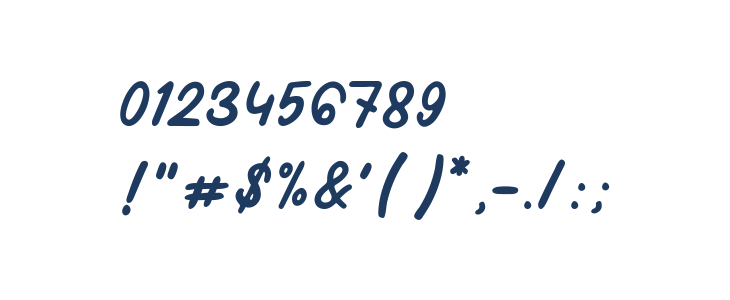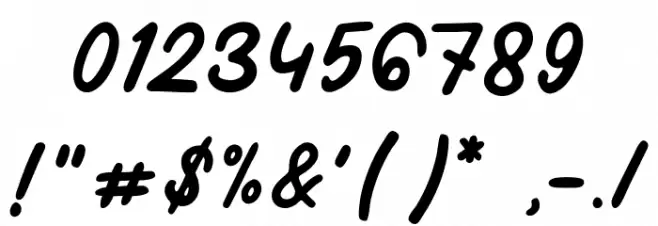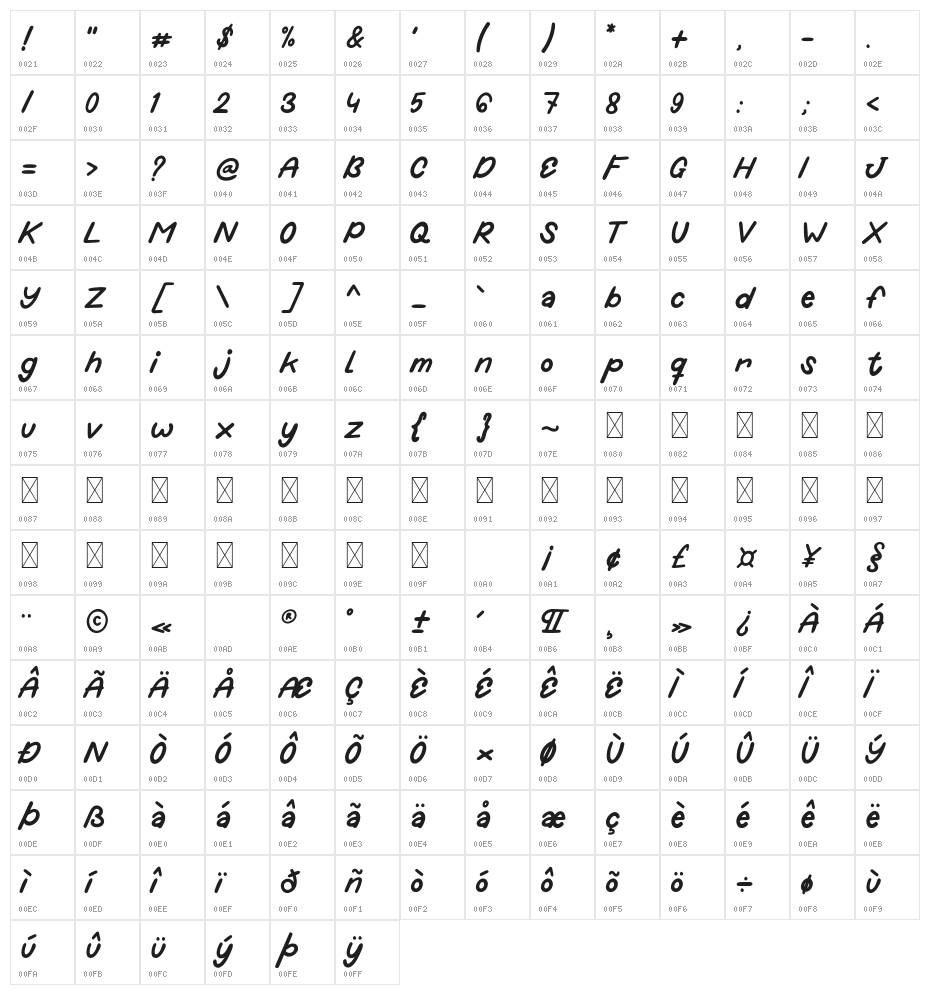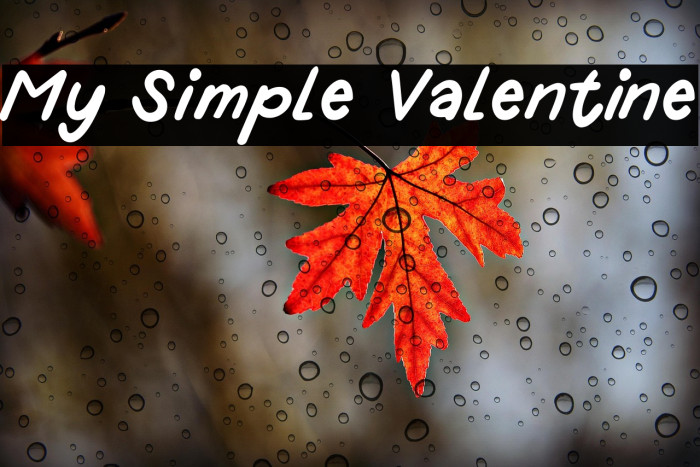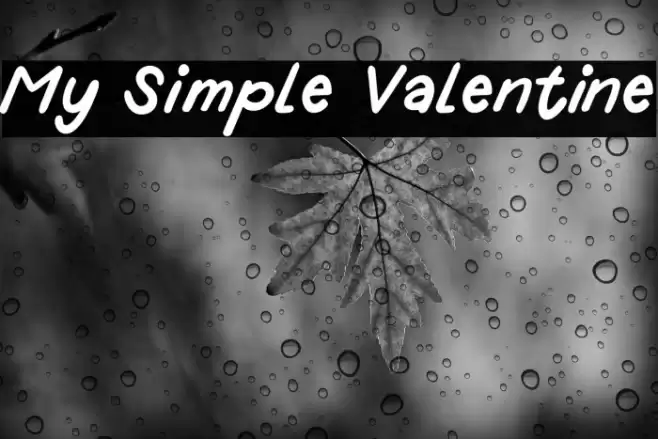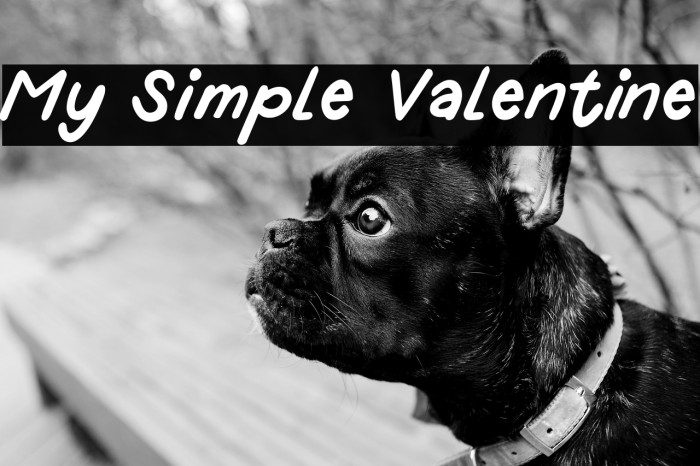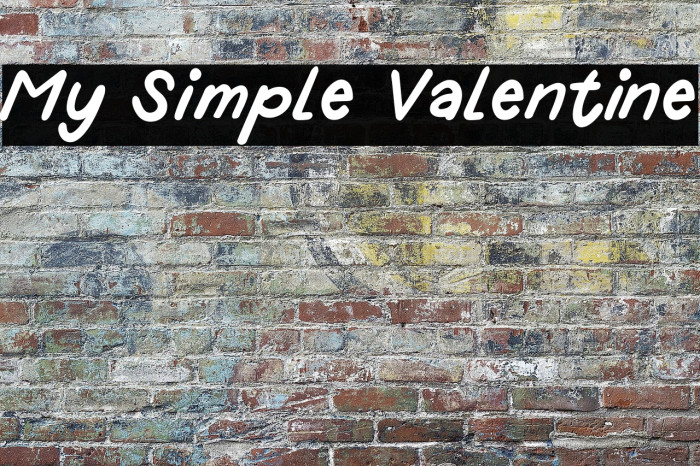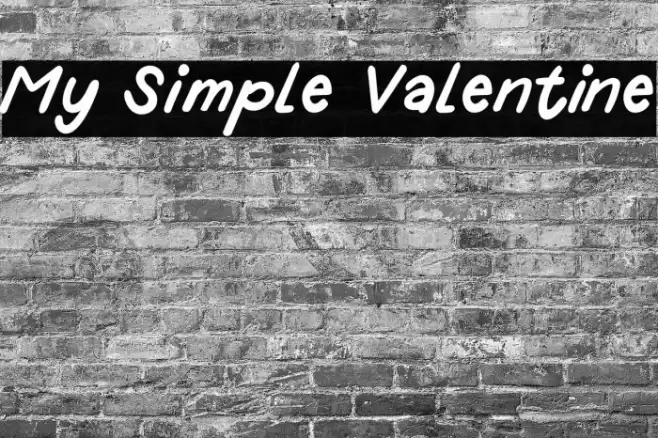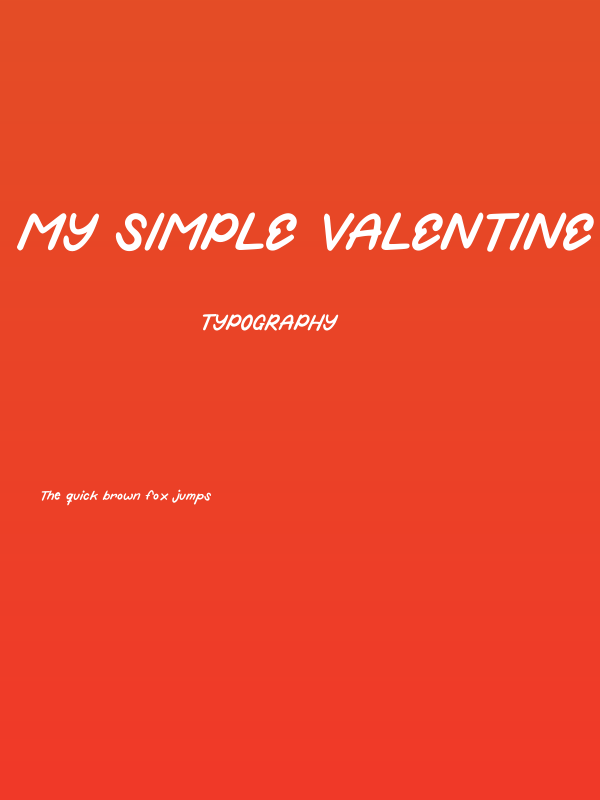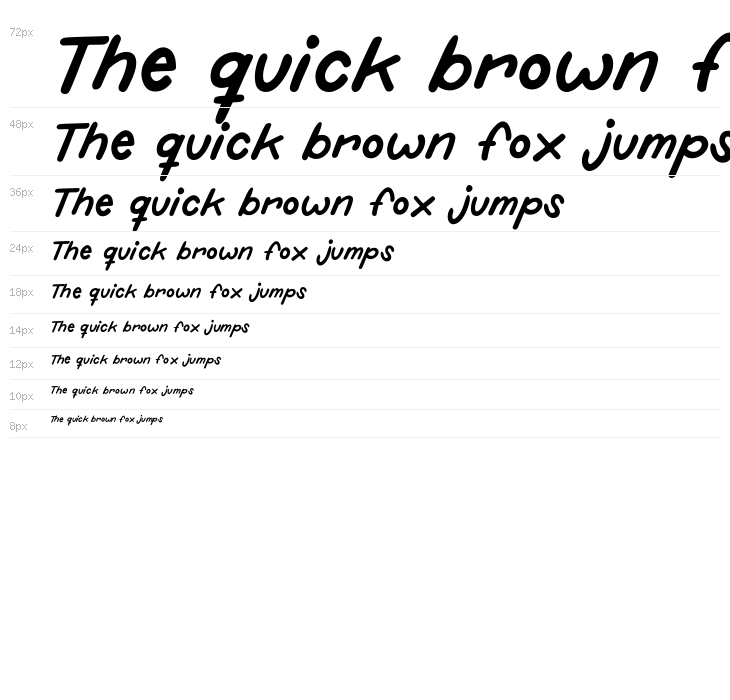
My Simple Valentine Font
My Simple Valentine Description
This font exudes a playful and casual style, characterized by its smooth, flowing curves and slightly slanted orientation. The letters are bold and rounded, giving them a friendly and approachable appearance. The uppercase and lowercase letters maintain a consistent style, with a slight variation in size and shape that adds to the font's charm. The numbers are equally rounded and maintain the playful aesthetic. Special characters are well-integrated, ensuring versatility in various design contexts. The overall look is cohesive, making it suitable for projects that require a personal touch.